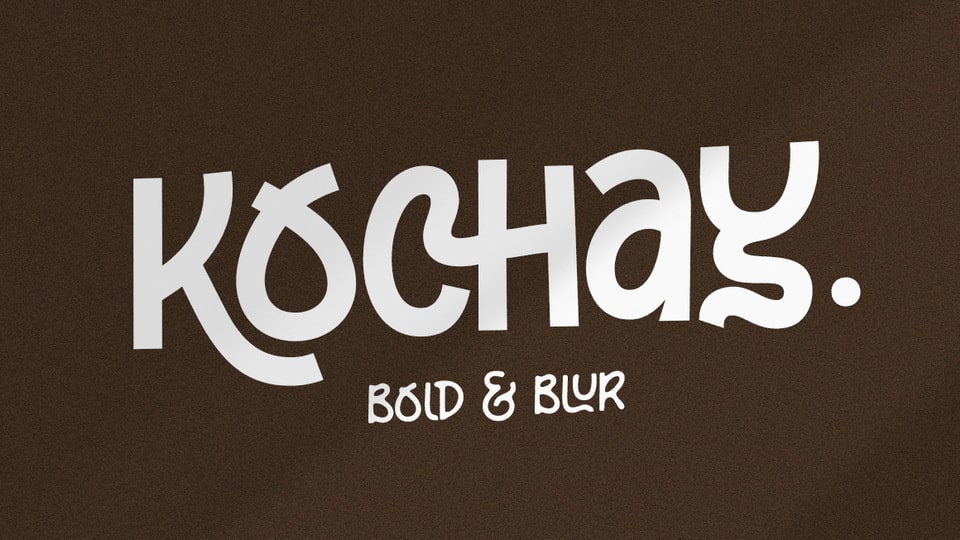
Download Kochay font, a unique bold and blurred hand lettering monoline typeface. This font is outstanding with its sharp and bold style that makes Kochay font is more tough and aesthetic.